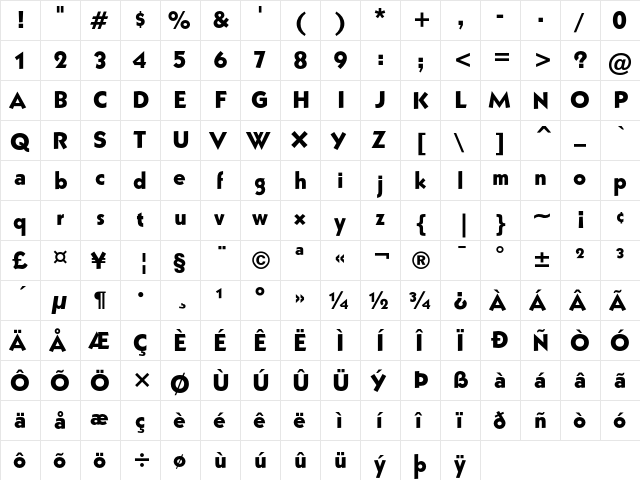
ITC Grizzly Regular
Design Context for ITC Grizzly Typeface
ITC Grizzly is a composed and adaptable typeface that performs quietly and consistently across a wide range of design contexts.
Pro Tip: Use ITC Grizzly in both headline and body roles to test its range before committing to a single application.